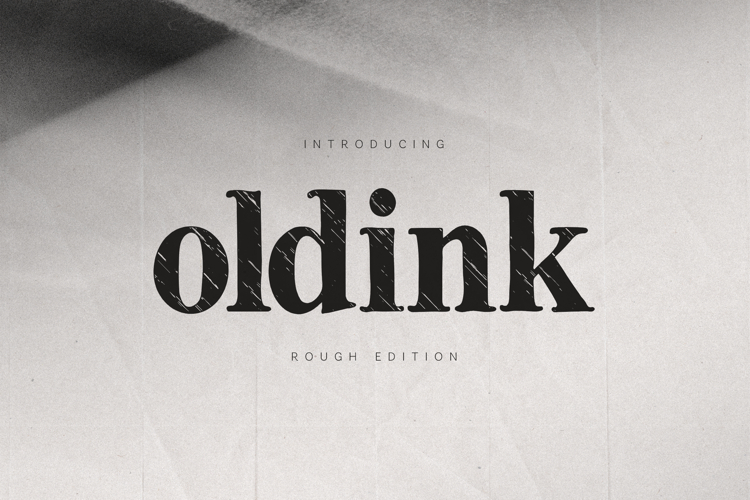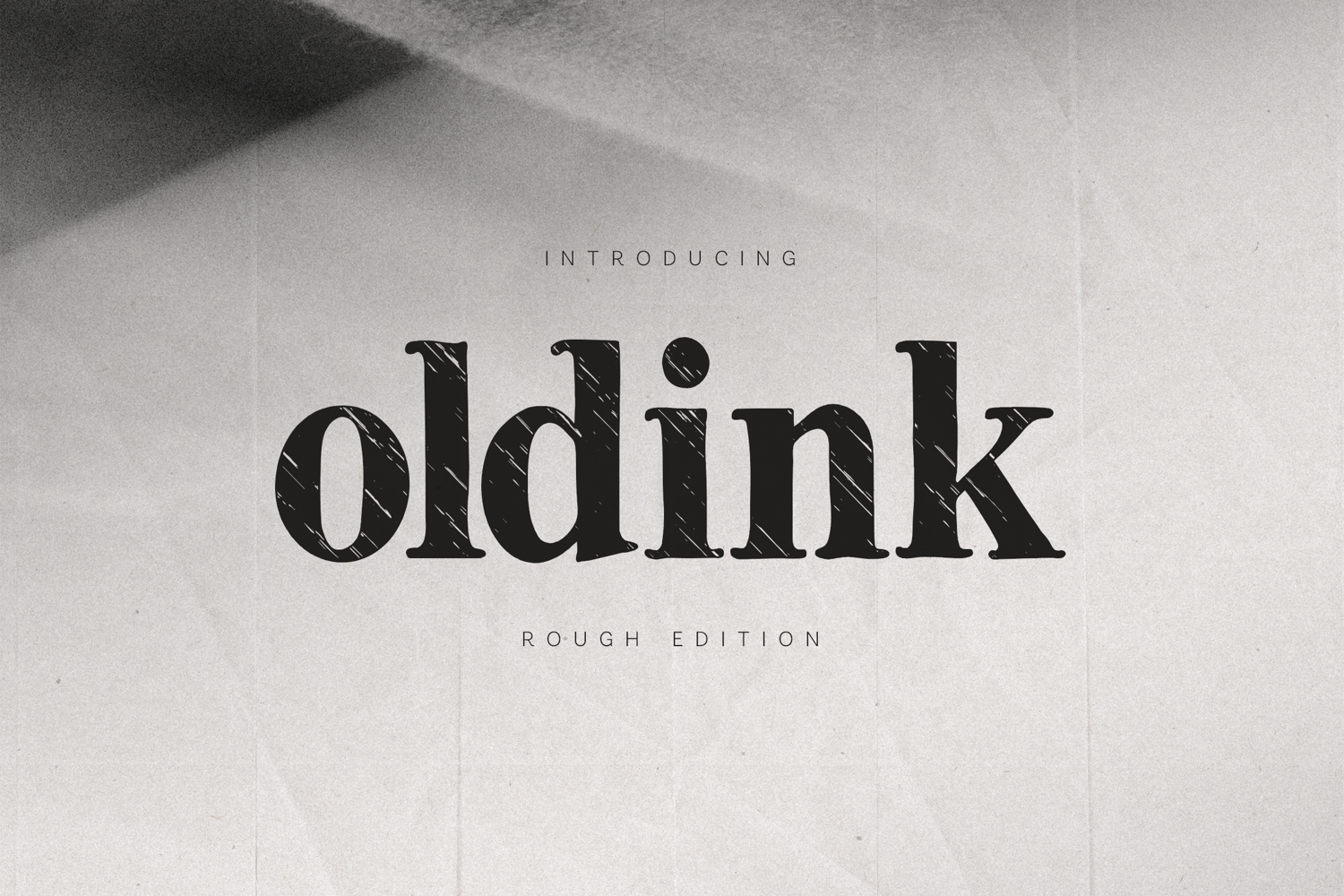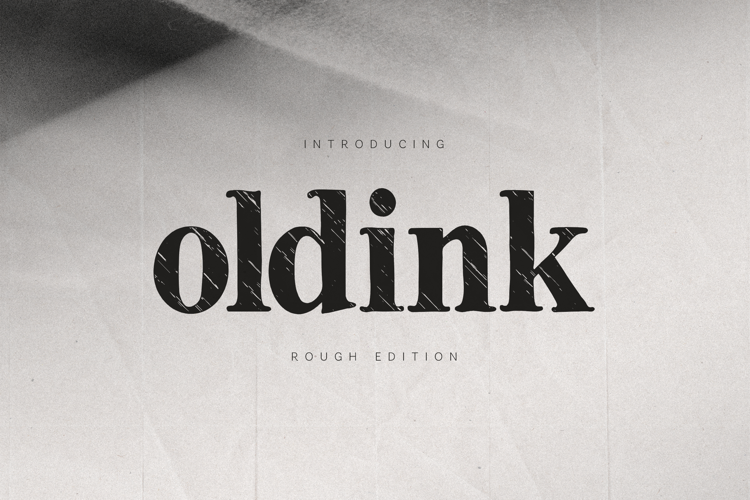
Oldink Vintage Rough Serif Font
Oldink is a vintage serif font inspired by old book printing, worn ink, and traditional letterpress aesthetics. Its classic serif structure combined with a rough, textured finish creates an authentic, timeless feel full of character and history.
Designed for editorial design, book covers, posters, packaging, branding, quotes, headlines, and heritage-style projects, Oldink brings a strong sense of craftsmanship and storytelling. The subtle ink distress adds warmth and imperfection, making each word feel tactile and human.
This Rough Edition is perfect for designs that need depth, nostalgia, and visual texture without sacrificing readability.
Oldink includes a complete character set with uppercase and lowercase letters, numerals, punctuation, symbols, and extensive multilingual support, making it suitable for professional and international use.
If you’re looking for a serif font that feels classic, literary, and authentically aged, Oldink delivers timeless typography with character.